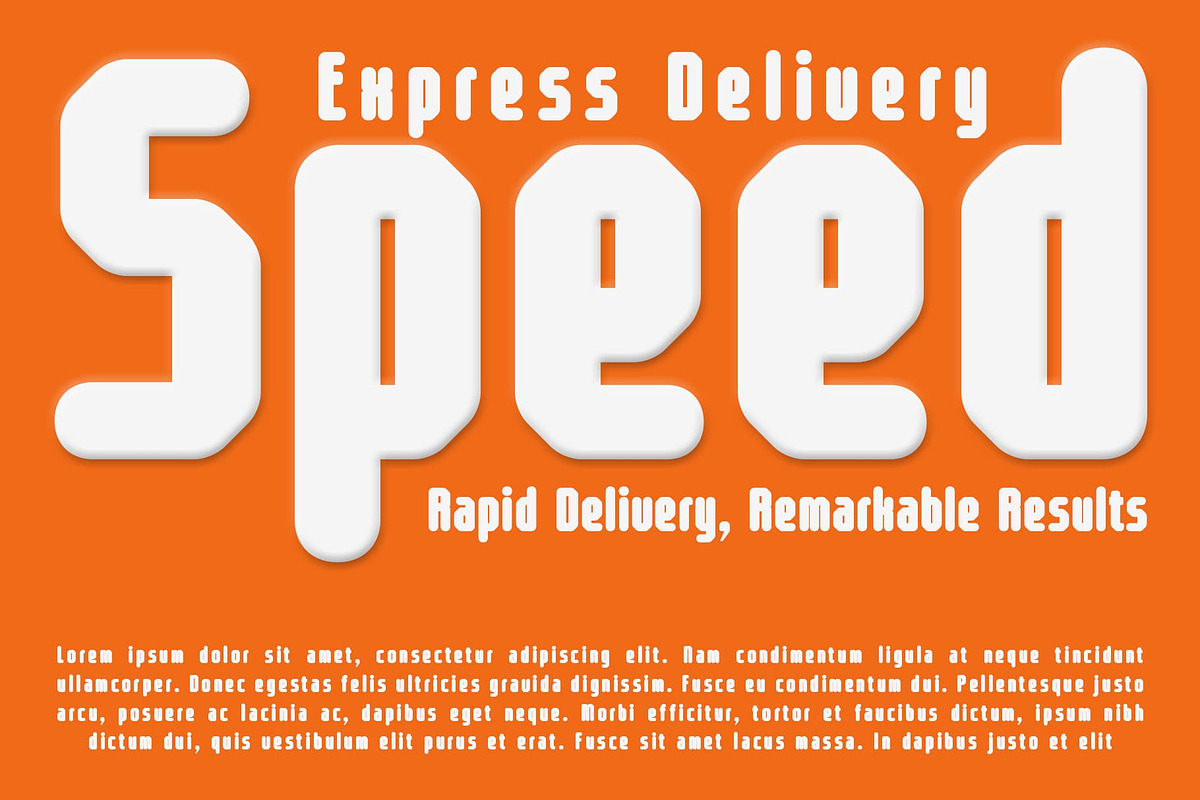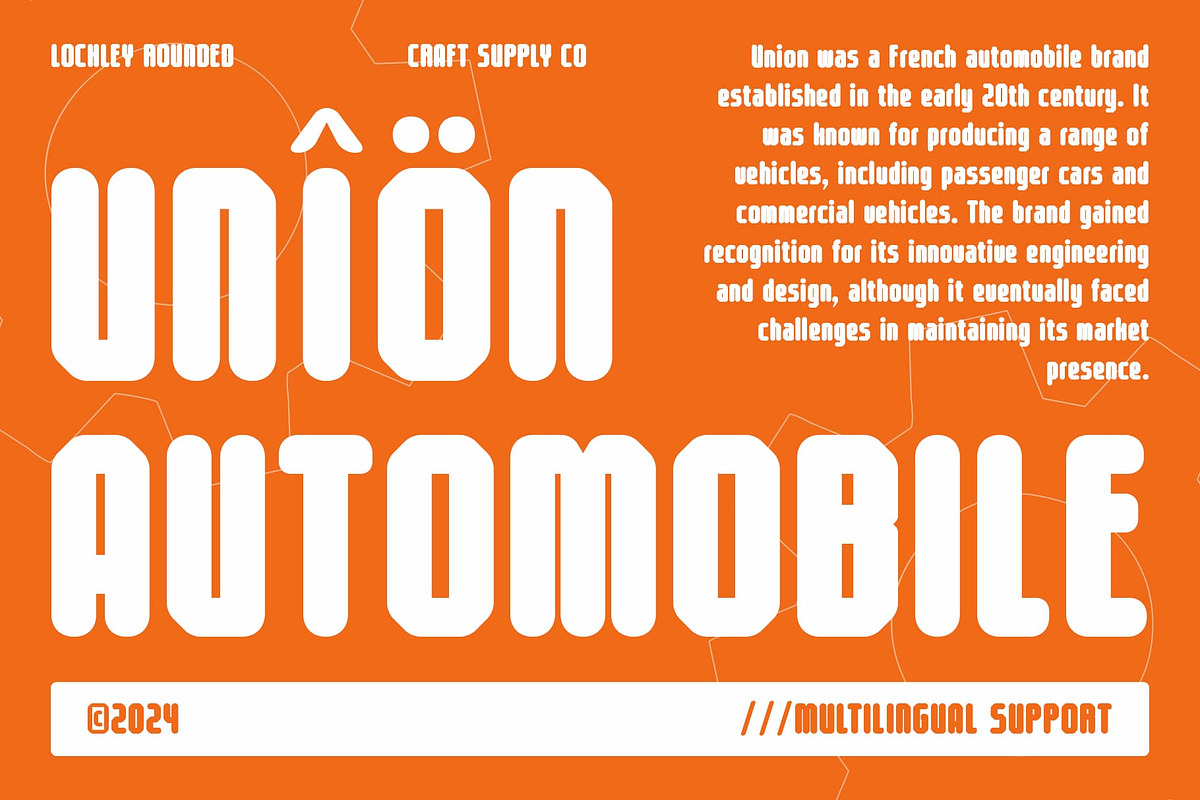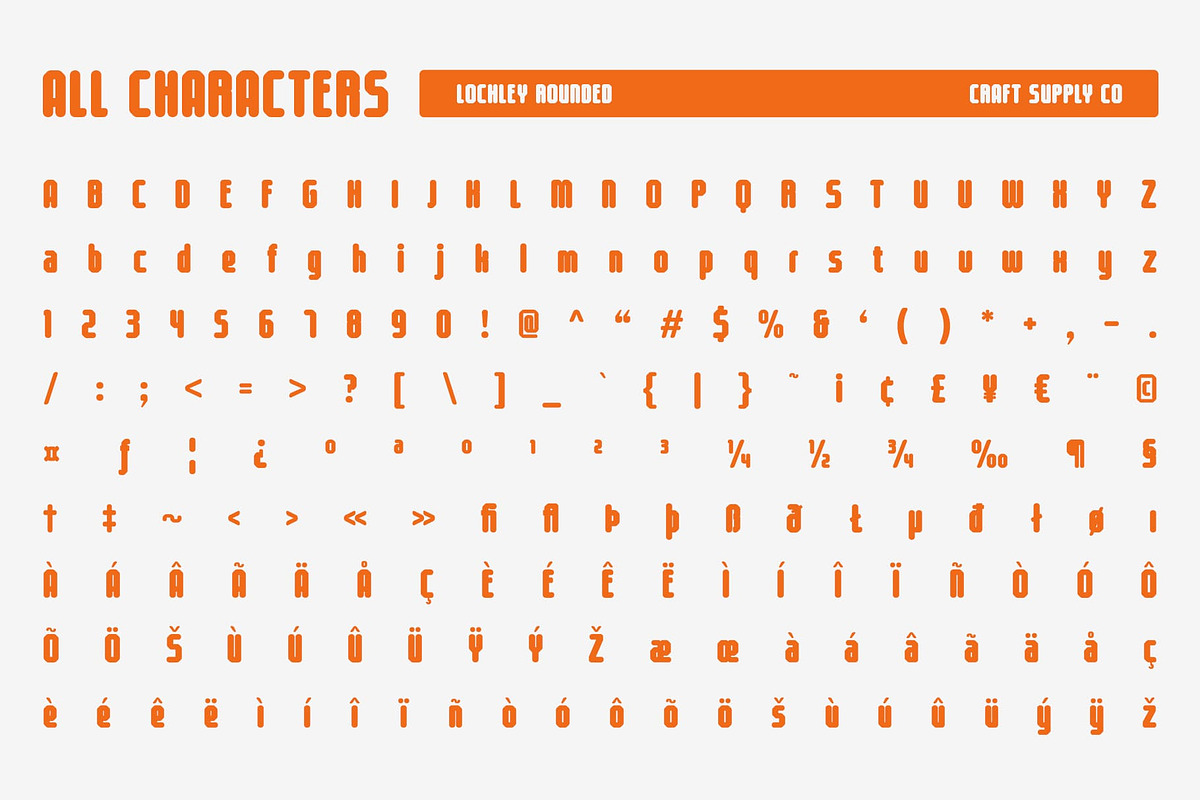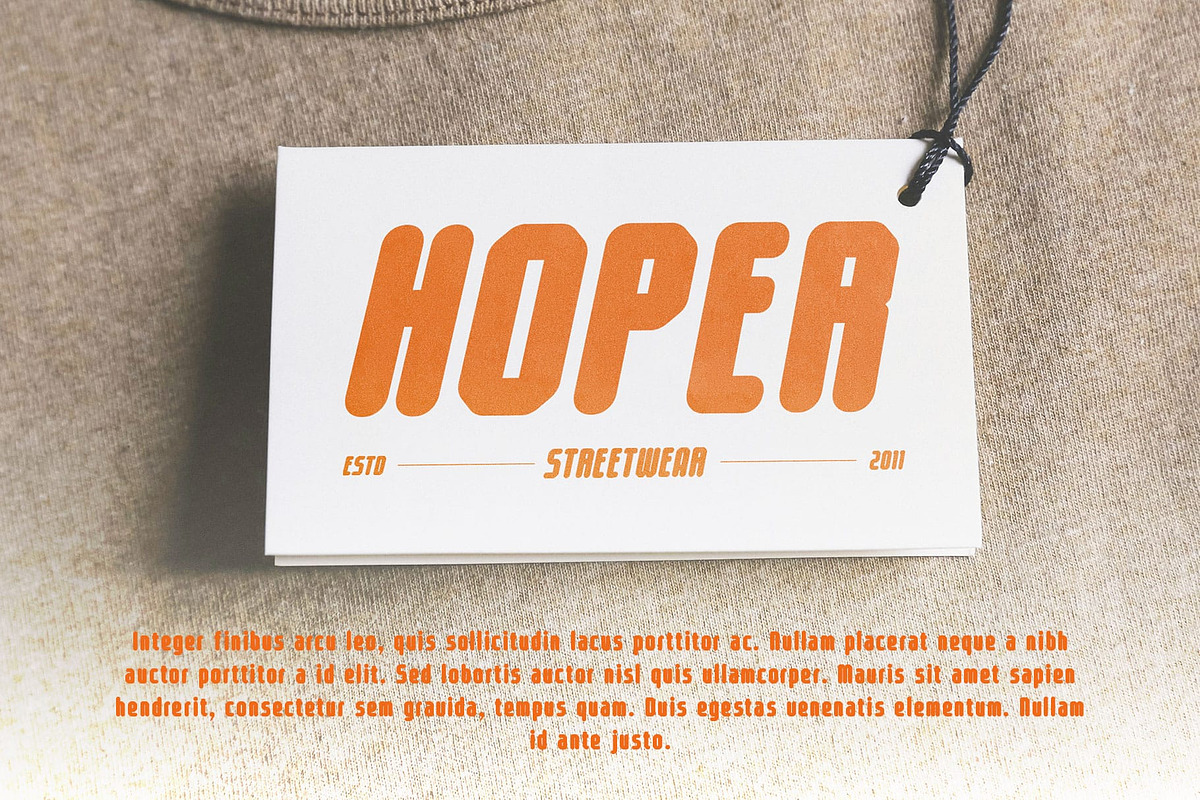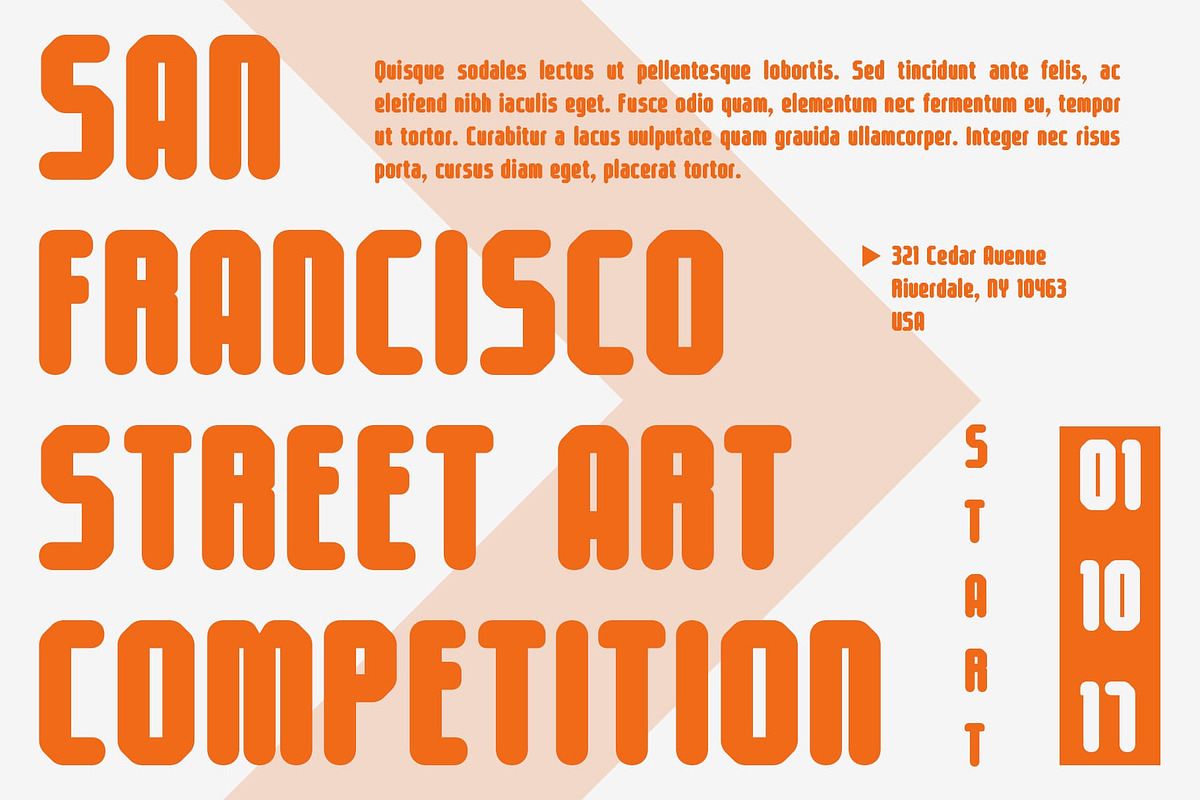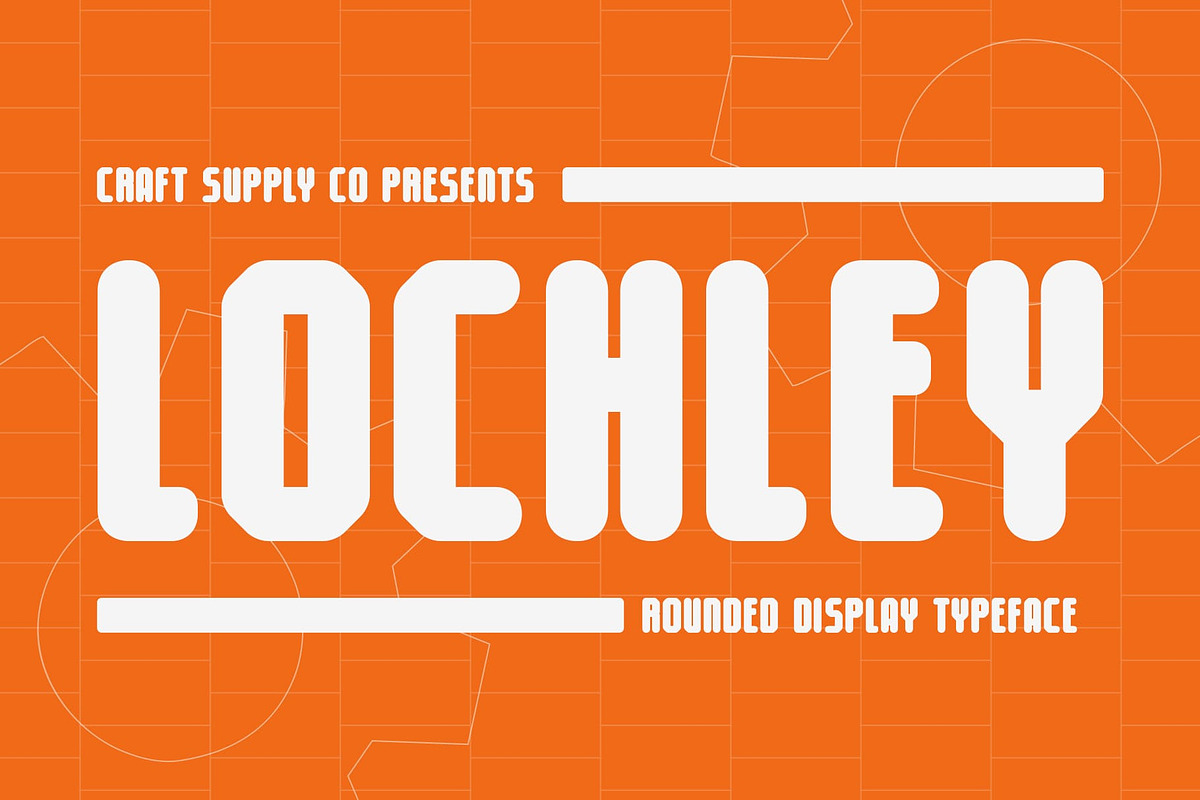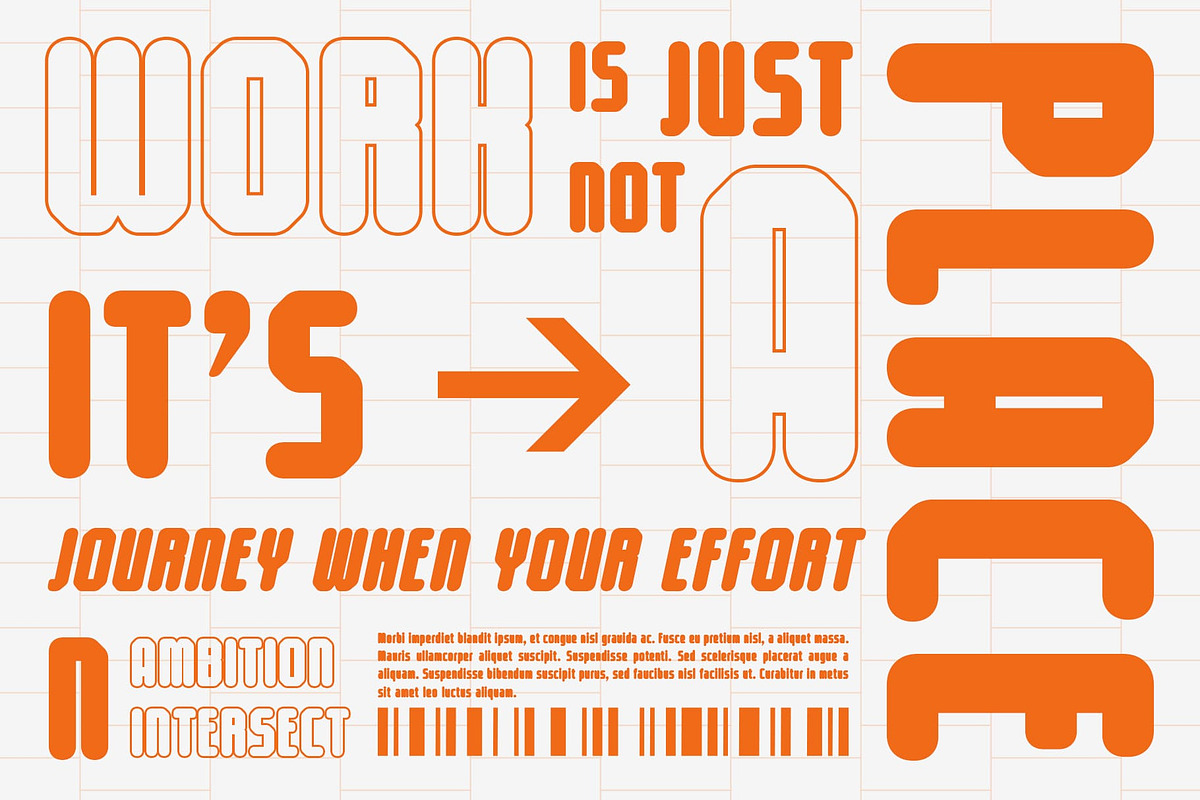
Lochley Rounded
Lochley Rounded – Bold, Condensed Tech Font
Compact Strength with a Futuristic Touch Lochley Rounded is a modern sans-serif font that blends boldness, compactness, and sleek, contemporary design. Its condensed form provides a solid and efficient structure, making it ideal for tight spaces without compromising readability. The bold letters enhance its strong visual presence, while the rounded edges soften the overall aesthetic, introducing a friendly and futuristic feel. This balance between strength and softness creates a unique visual identity that is both approachable and cutting-edge.
Ideal for Technology and Innovative Design The tech-inspired style of Lochley Rounded makes it perfect for a wide range of technology-themed projects, including software branding, digital interfaces, app design, and futuristic product packaging. Its condensed form allows it to fit seamlessly into layouts with limited space, ensuring legibility and clarity while maintaining a modern, sleek look. The rounded corners add a touch of warmth and innovation, making the font versatile and ideal for designs aiming to communicate both functionality and creativity.
A Bold Choice for Modern Projects Lochley Rounded stands out as a bold choice for any project that demands a strong yet approachable aesthetic. The font’s combination of geometric precision with rounded softness makes it adaptable to various design needs, from technology-driven branding to creative digital interfaces. Its compact form allows for efficient use in headlines, logos, and other display applications, ensuring a contemporary and polished look.